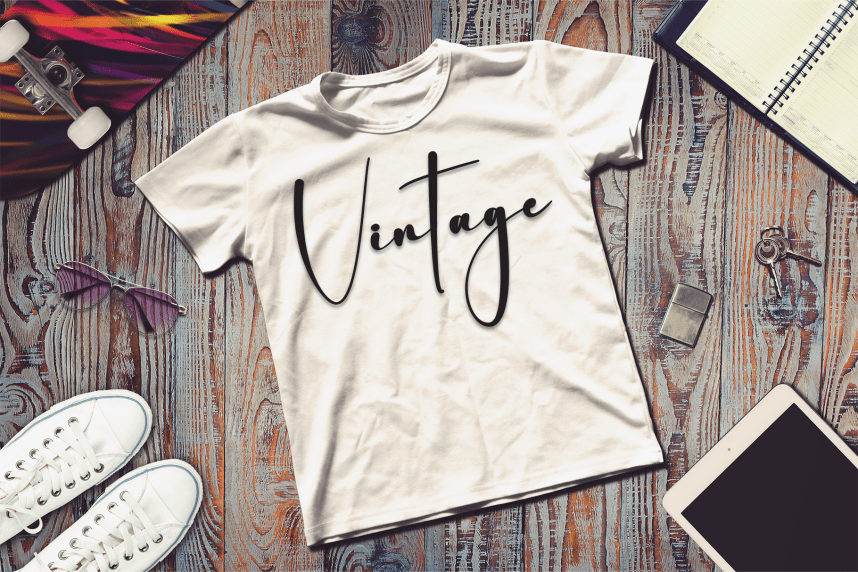
Hangouth Christmas – Creative Style Handwritten Font
Hangouth Christmas – Creative Style Handwritten Font, special creative products for you, our products will give you an extraordinary experience. the latest style letters are perfect for wall displays, wedding invitations, social media post logos, advertisements, product packaging, product designs, labels, photography, watermarks, invitations, stationery, and any project that requires taste handwriting.